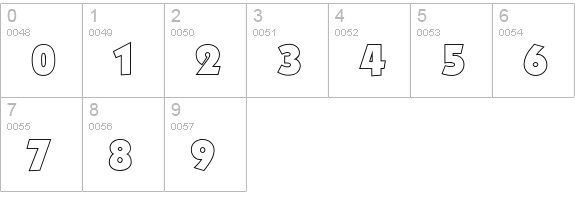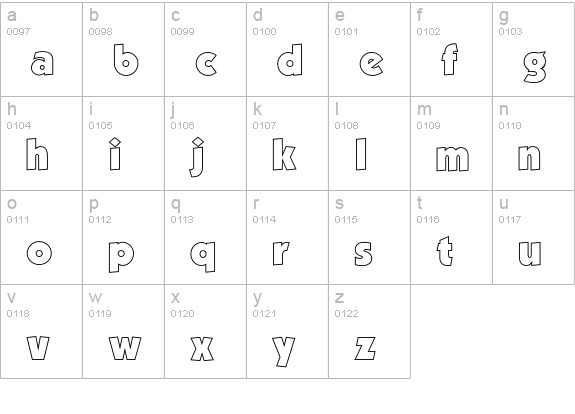
KabelOutline Font Details
KabelOutline font is a beautifully designed typeface that exudes elegance and sophistication. With its clean lines and modern aesthetic, it is perfect for a wide range of design projects, from branding to editorial layouts. This font features an outline style, adding a unique touch to your typography. The letters are meticulously crafted, with just the right balance of curves and angles, resulting in a harmonious and visually appealing composition. KabelOutline font is not only visually stunning but also highly versatile. It can be used for both display and body text, making it suitable for various applications. Whether you need to create eye-catching headlines or legible paragraphs, this font has got you covered. One of the best things about KabelOutline font is that it is available for free. Yes, you read that right! You can freely download this font at FontsMarket.com, a reputable online platform for high-quality fonts. This means that you can use this font in your personal or commercial projects without any restrictions. So why wait? Enhance your design projects with the elegance and versatility of KabelOutline font. Download it for free today at FontsMarket.com and let your creativity soar.